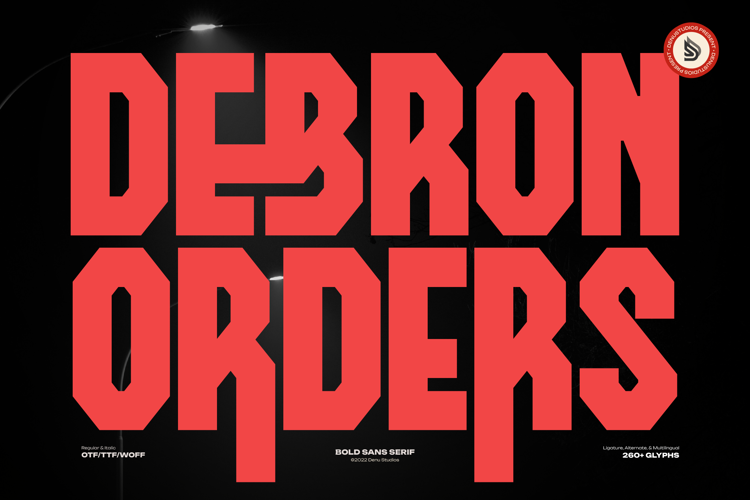
Debron Orders Font
Debron Orders | Bold Sans Serif product packaging, mugs, quotes, posters, shopping bags, t-shirts, book covers, name card, invitation cards, greeting cards, label, photography, watermark, special events, and all your other lovely projects that need a Bold Sans Serif taste.